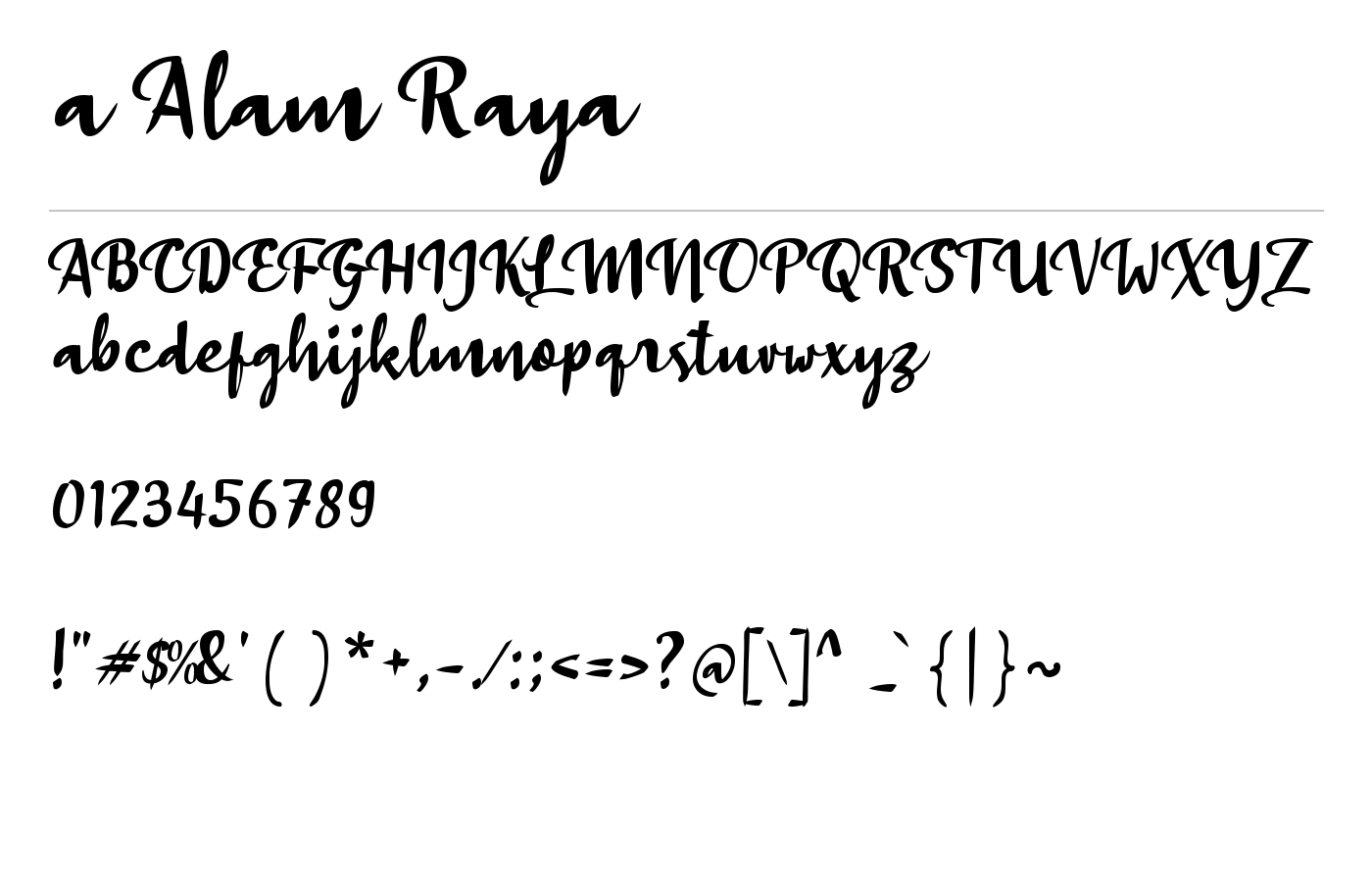
Alam Raya is a lively script font with a casual, handwritten feel, featuring smooth, flowing strokes and moderate contrast that give it a warm and inviting personality. Its balanced x-height and slightly condensed letterforms make it suitable for both display and body text, while its clean, elegant curves lend a touch of sophistication perfect for branding, invitations, and creative projects that require a friendly yet stylish look. This font works well in designs that seek a personal, approachable vibe with a hint of elegance.
a Alam Raya Font
About a Alam Raya Font